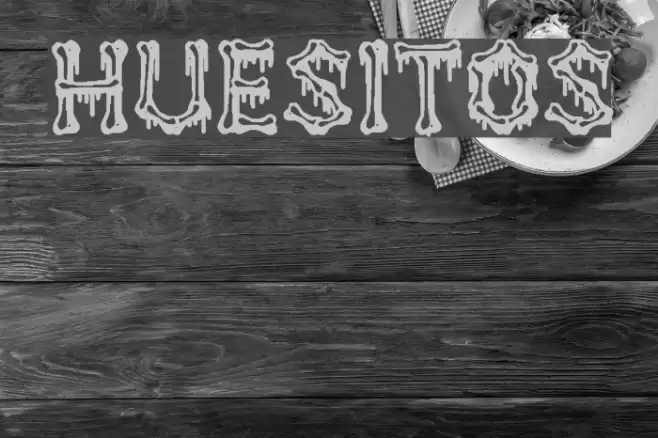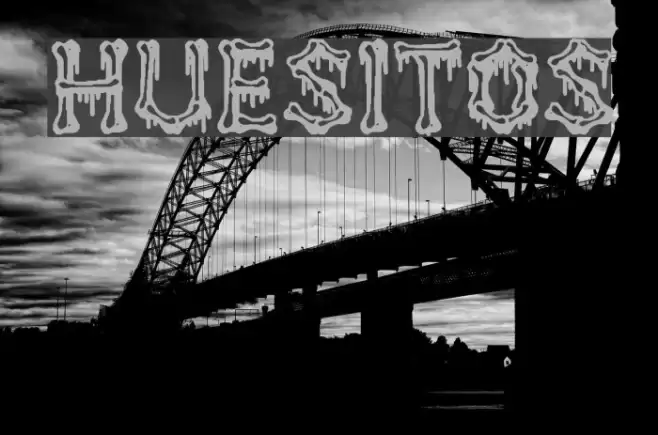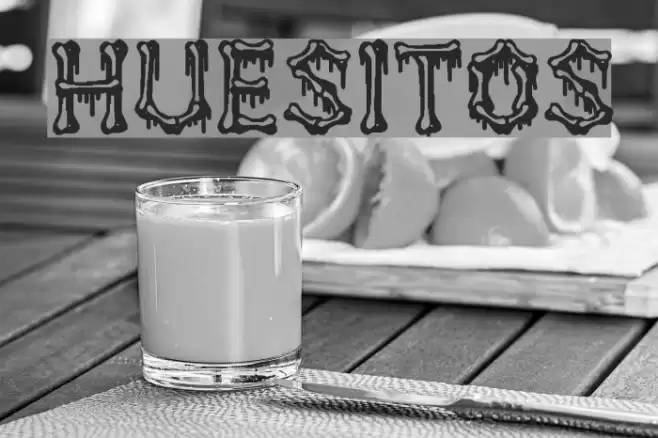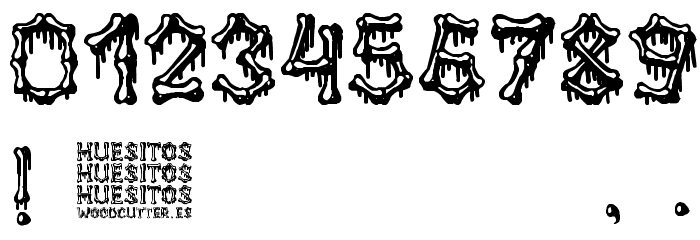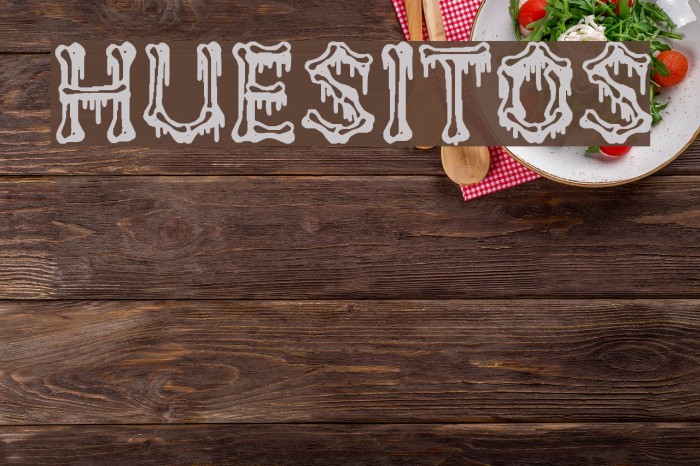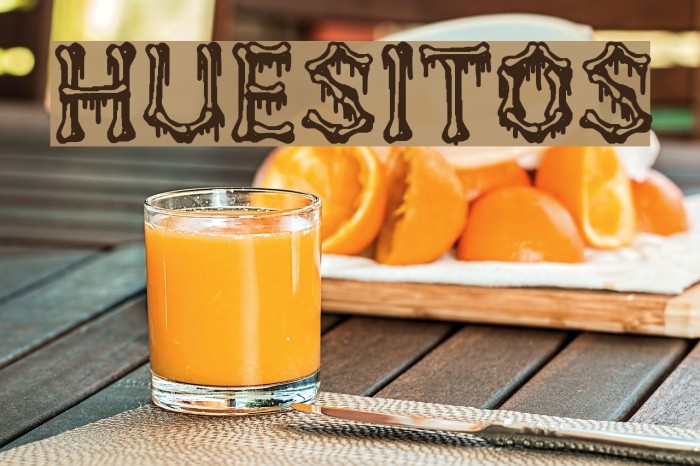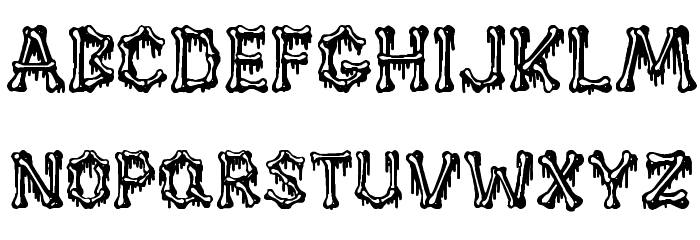
Huesitos Font
Huesitos Description
This font features a unique and playful design with a dripping effect that gives it a spooky, Halloween-like appearance. The characters are bold and have a decorative style, resembling melting or dripping paint. Each letter maintains a consistent thickness, contributing to a cohesive look across the alphabet. The font is highly stylized, making it suitable for thematic projects that require a touch of whimsy or eeriness. The numbers and special characters follow the same design principles, ensuring uniformity throughout.
A bold, decorative font with a dripping effect, ideal for spooky themes from Uncategorized fonts.
- Proposed Projects: Perfect for Halloween-themed designs, party invitations, horror movie posters, or any project requiring a playful yet eerie aesthetic.
- Use Case: Headlines, Logos, Thematic designs